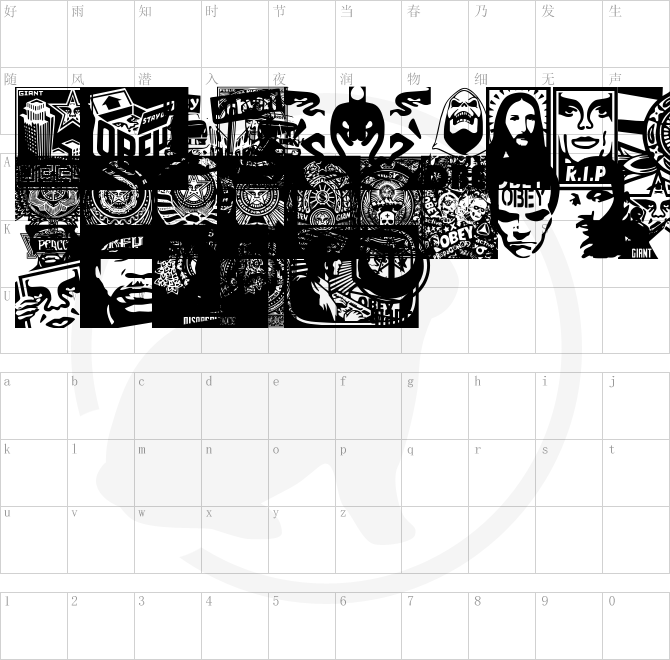
- Font Name:ObeyPotpourri
ObeyPotpourri.ttf is a very beautiful artistic font, ObeyPotpourri.ttf is widely used in the design and printing of various books and pictures,ObeyPotpourri.ttf has a strong visual impact,ObeyPotpourri.ttf is a commonly used font in newspapers, magazines and books, and is used in posters, e-commerce Poster design, store design, logo design, font design and other fields.ObeyPotpourri.